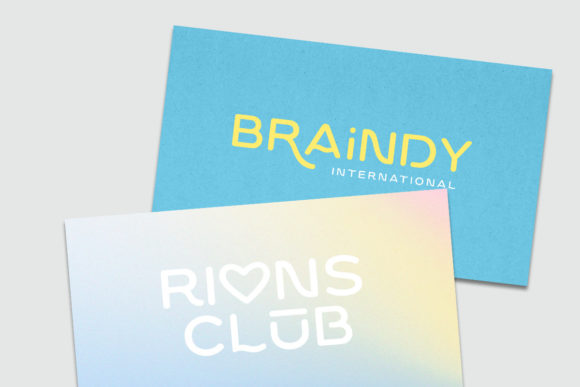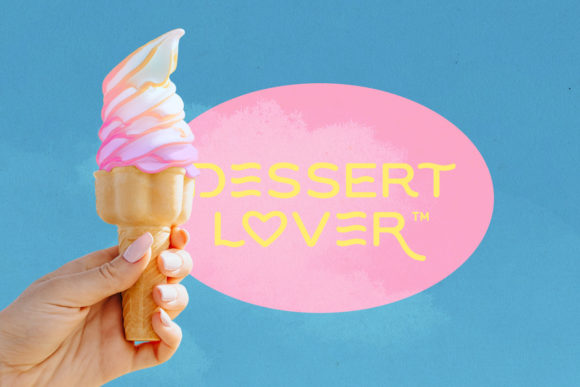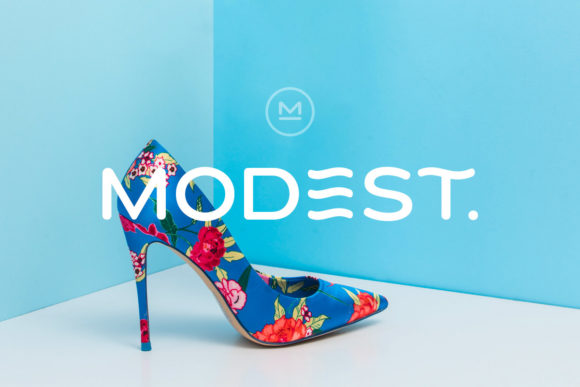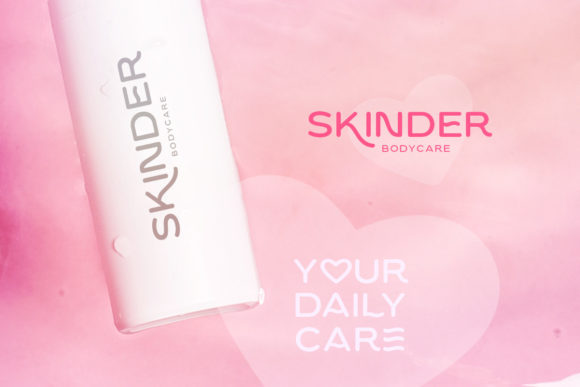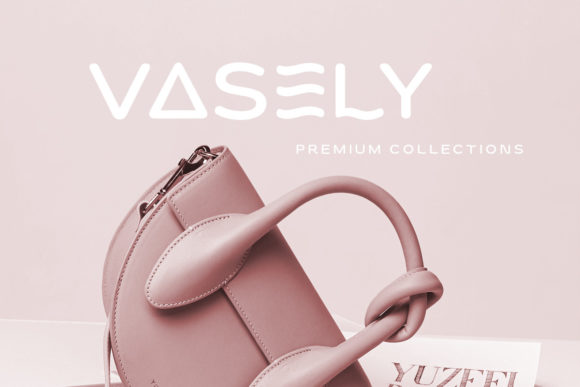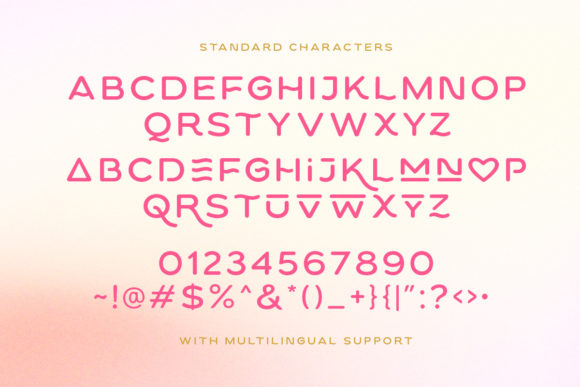
Introduction to Klopers Font Font
Fonts play a crucial role in design, and the Klopers Font font is a typeface that brings both character and versatility to any project. Whether you’re working on a branding project, a website, or a print design, the Klopers Font font offers a unique style that can elevate your work.
Klopers is a friendly, light and adaptable display font.
Add it to each of your party invitation, gathering or pretty much any design that requires a touch of youth and joy .
Key Features of Klopers Font Font
Why Choose Klopers Font Font?
The Klopers Font font is more than just a typeface – it’s a design tool that helps you communicate your message with style and clarity. Its unique character set and versatile design make it suitable for a wide range of applications, from elegant invitations to bold headlines.
With its carefully crafted letterforms and balanced proportions, the Klopers Font font ensures readability and visual appeal across all mediums.
What makes Klopers Font font special?
The Klopers Font font stands out with its unique design, exceptional readability, and versatility across various design applications.